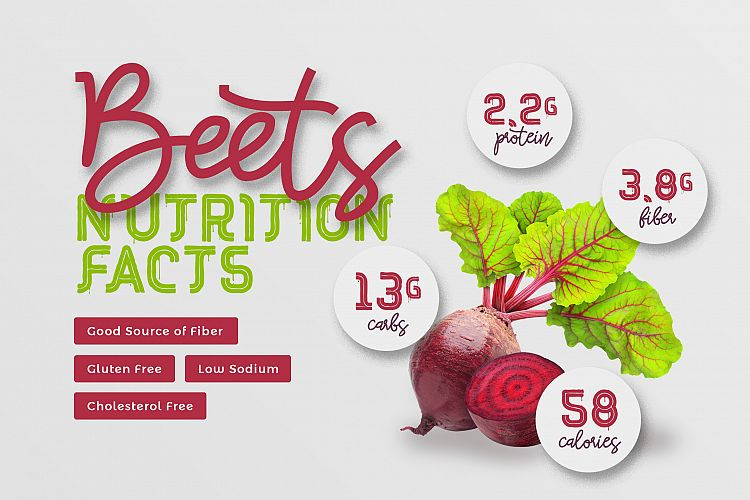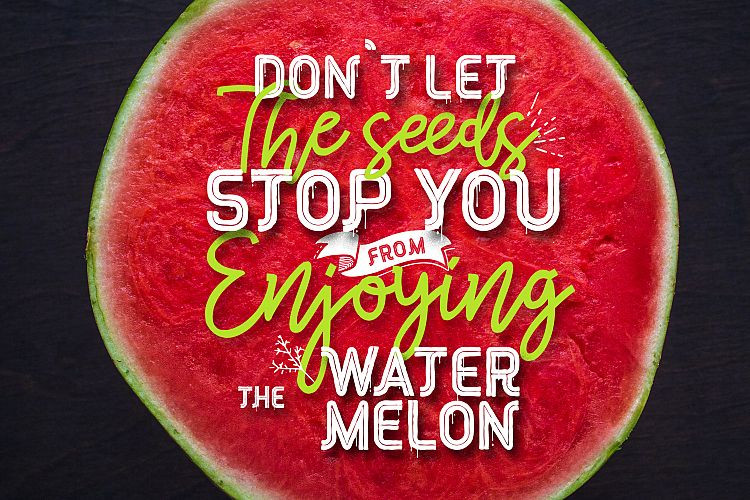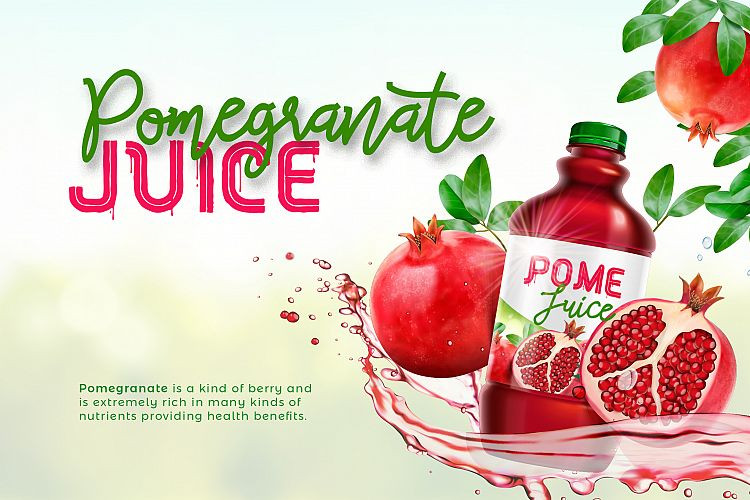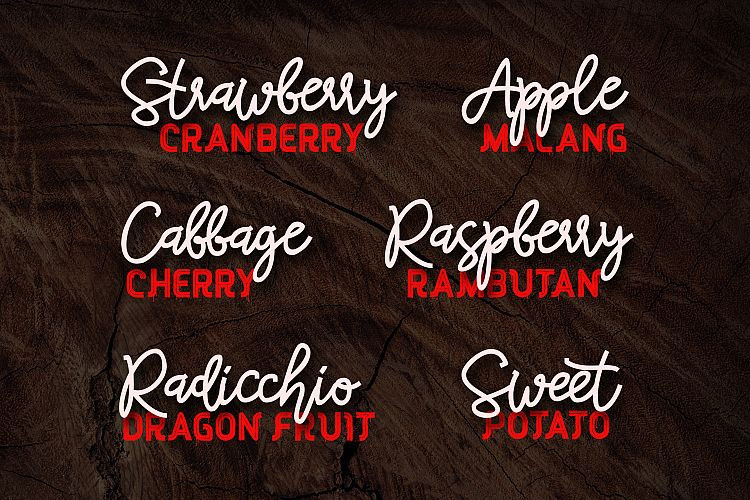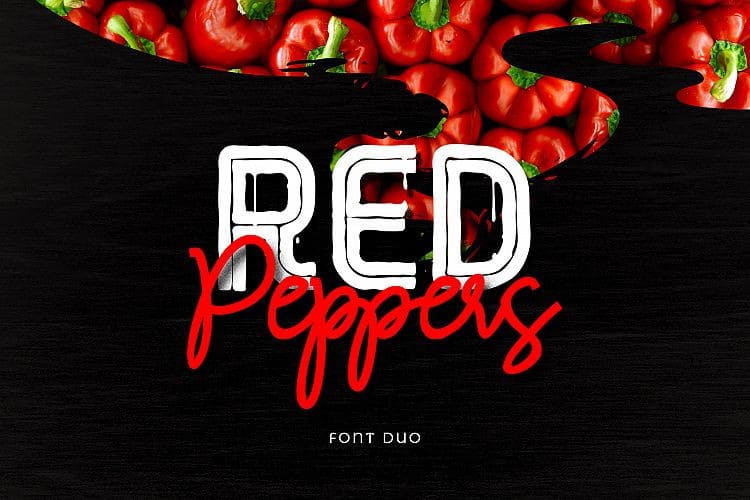
Red Peppers Font – Free Demo
Introducing RED Peppers Script & Sans. A delicious new Font Duo that makes sweet designs! Red Peppers – Delicious and script font with a perfect combination font pair, but it still has a natural-looking appearance
Red Peppers perfect for branding projects, headlines, posters, packaging, product labels, print, menu board, wall art, social media post, quotes, and so much more!